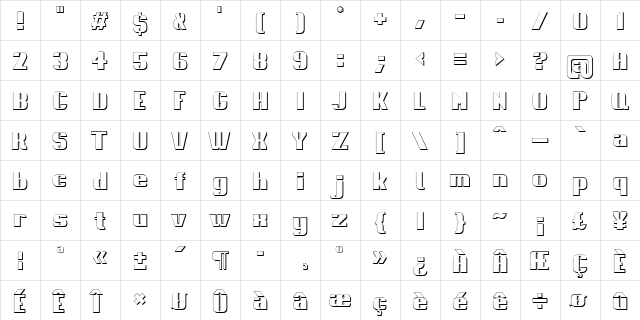
mathias troidimenson Font Preview
mathias troidimenson
mathias troidimenson Font Details
| Style | troidimenson |
Design Context for mathias Typeface
mathias is a composed and adaptable typeface that performs quietly and consistently across a wide range of design contexts.
Pro Tip: Use mathias in both headline and body roles to test its range before committing to a single application.